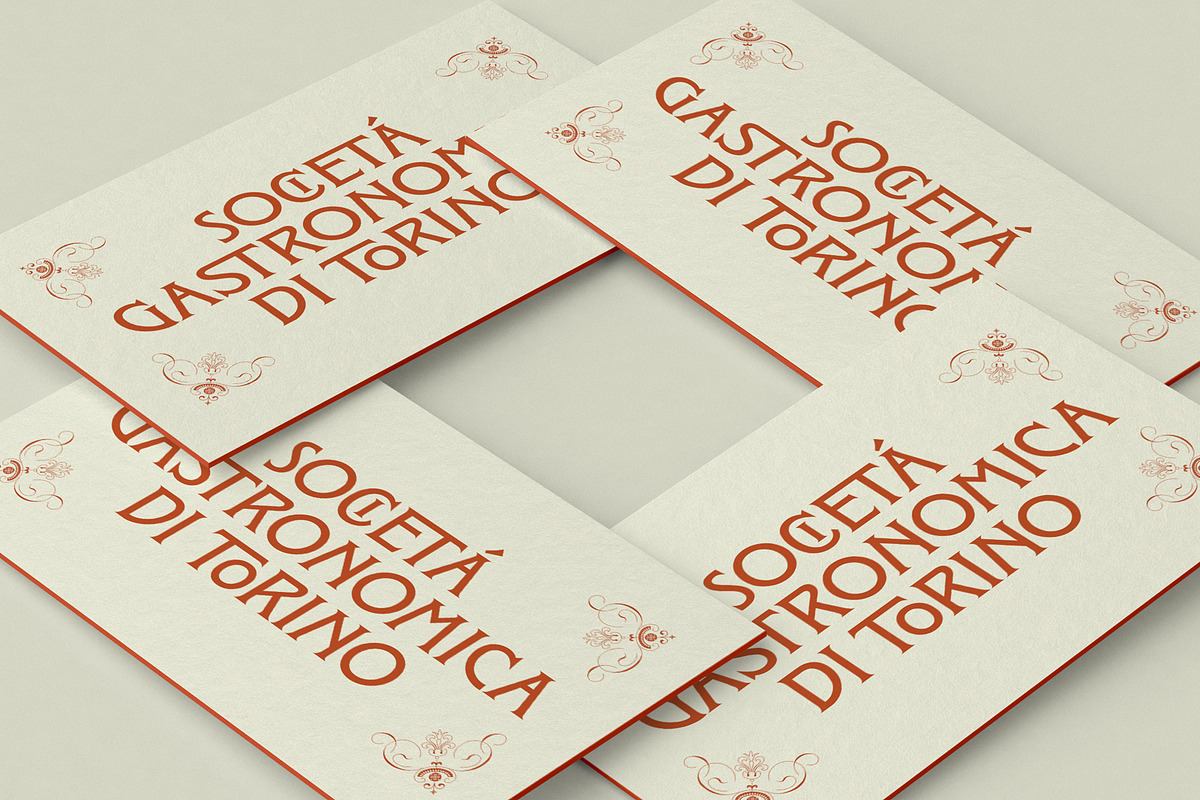
Clockmaker - 8 Fonts Free Download is a versatile and creative font family that includes 8 distinct typefaces, each designed to provide unique stylistic options for your projects. Whether you need bold, refined, or vintage-inspired typography, Clockmaker offers a complete toolkit for logos, posters, branding, and modern design projects.
Clockmaker - 8 Fonts Free Download provides a wide variety of styles—ideal for adding flexibility and variety to your design work. Whether you're designing for a high-end brand, a vintage-inspired project, or a bold, modern campaign, this font family delivers both style and readability. Download it today and explore the full potential of Clockmaker’s diverse design options!